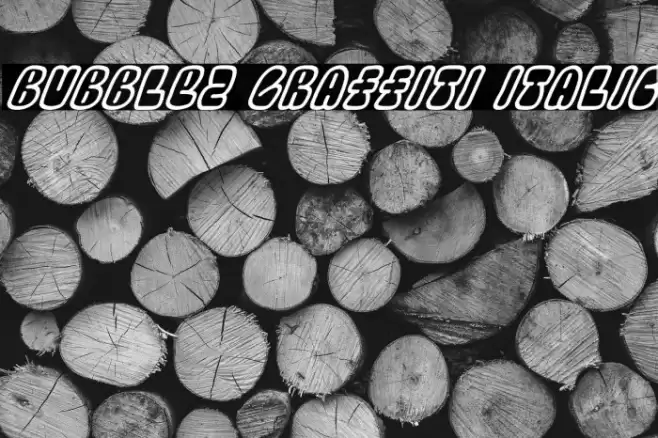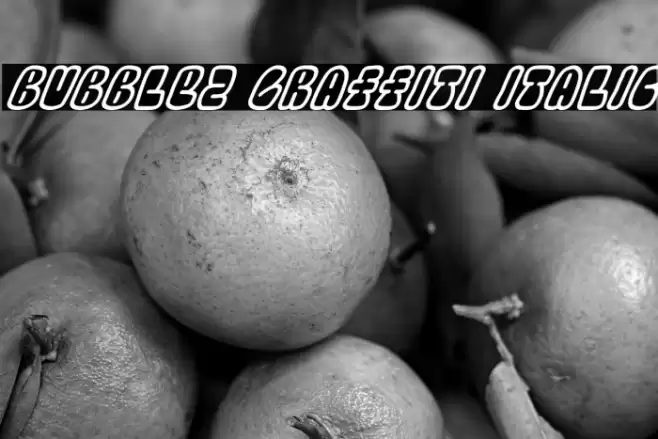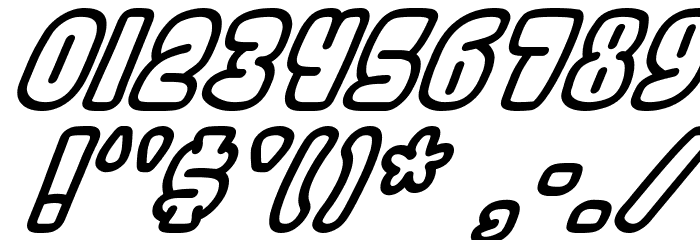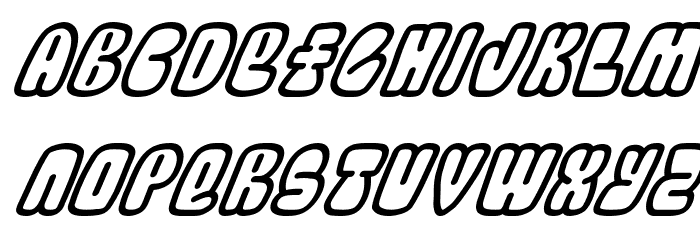
Bubblez Graffiti Italic Font
Bubblez Graffiti Italic Description
This font exhibits a bold, playful graffiti style with a distinct bubble-like appearance. The letters are italicized, giving a dynamic and energetic feel. Each character is outlined, enhancing its visibility and adding a three-dimensional effect. The font's rounded edges and thick strokes contribute to its informal and artistic look, making it ideal for creative and urban-themed designs. The numbers and special characters maintain the same bubbly and bold characteristics, ensuring consistency across all elements.
A bold, italicized graffiti-style font with a playful, bubble-like appearance from bubble letter fonts.
- Proposed Projects: Ideal for street art designs, urban-themed posters, youth-oriented branding, and creative event flyers.
- Overall Style: Modern, Urban, Playful